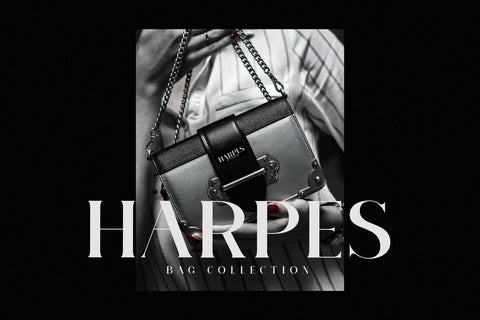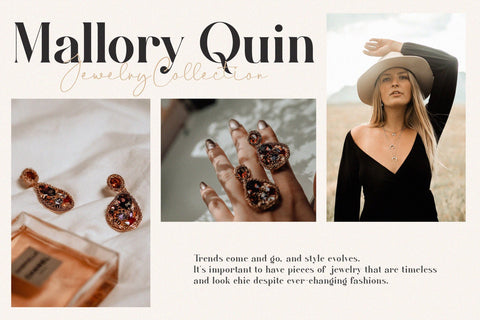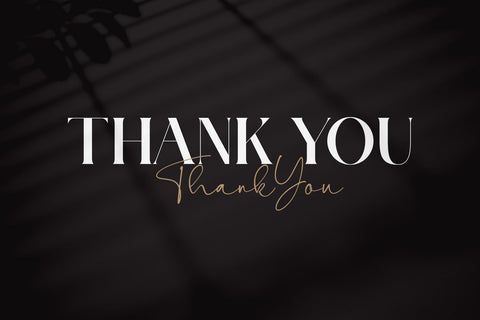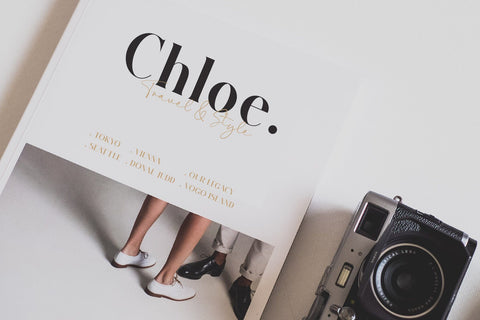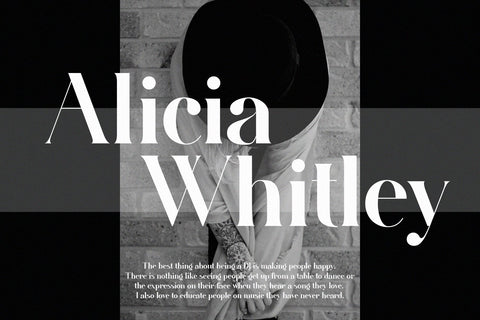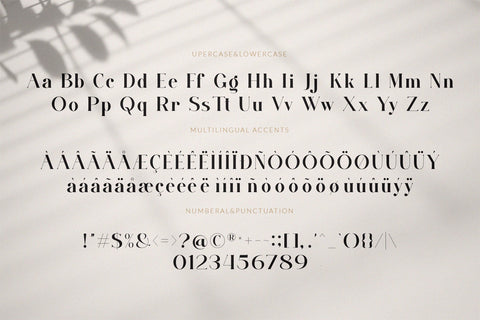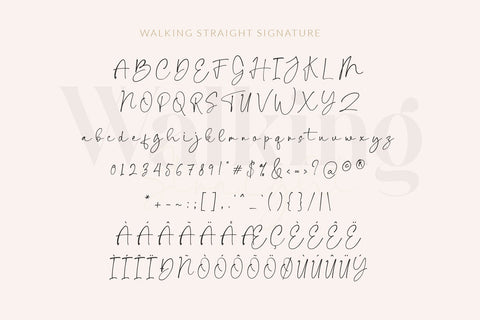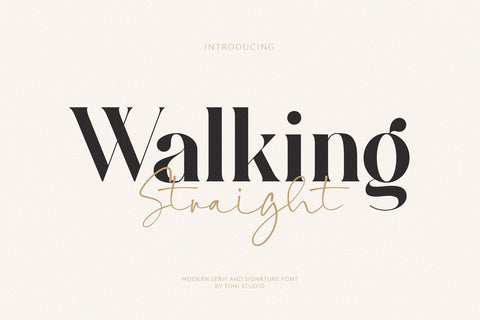
walking Straight_font duo
Introducing the new Walking Straight Font Duo!!! Walking Straight is a classy font duo that includes a modern serif and signature script – already matched up and ready to be used together for your next design!
Walking Straight font is perfect for your up coming projects. Such as luxury logo and branding, classy editorial design, woman magazine, cosmetic brand, fashion promotional, art gallery branding, museum, historical of architectural, boutique branding, stationery design, blog design, modern advertising design, card invitation, art quote, home decor, book/cover title, special events and any more.
Walking Straight Font Duo was built with features and numbers, punctuation, and it also supports other languages.